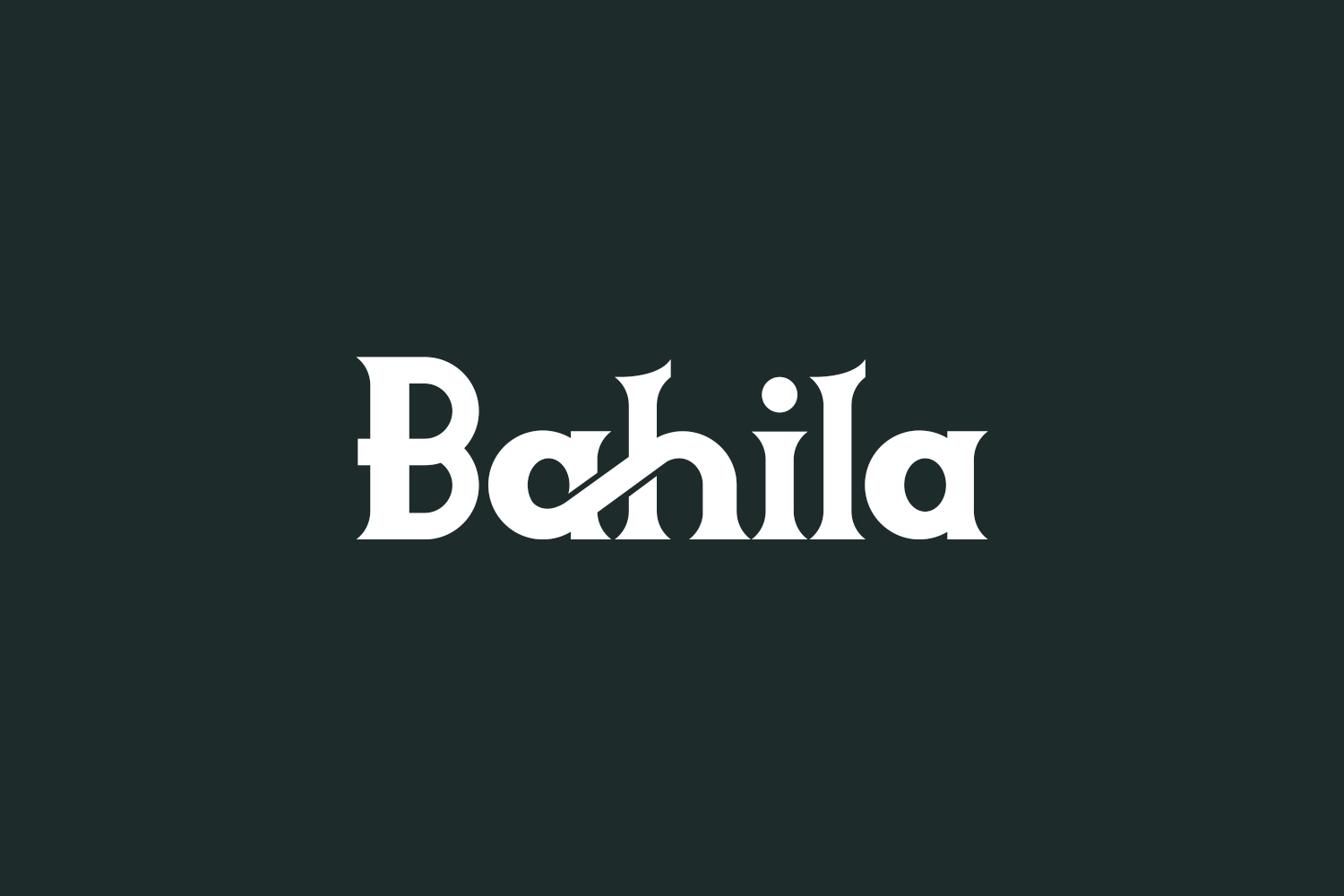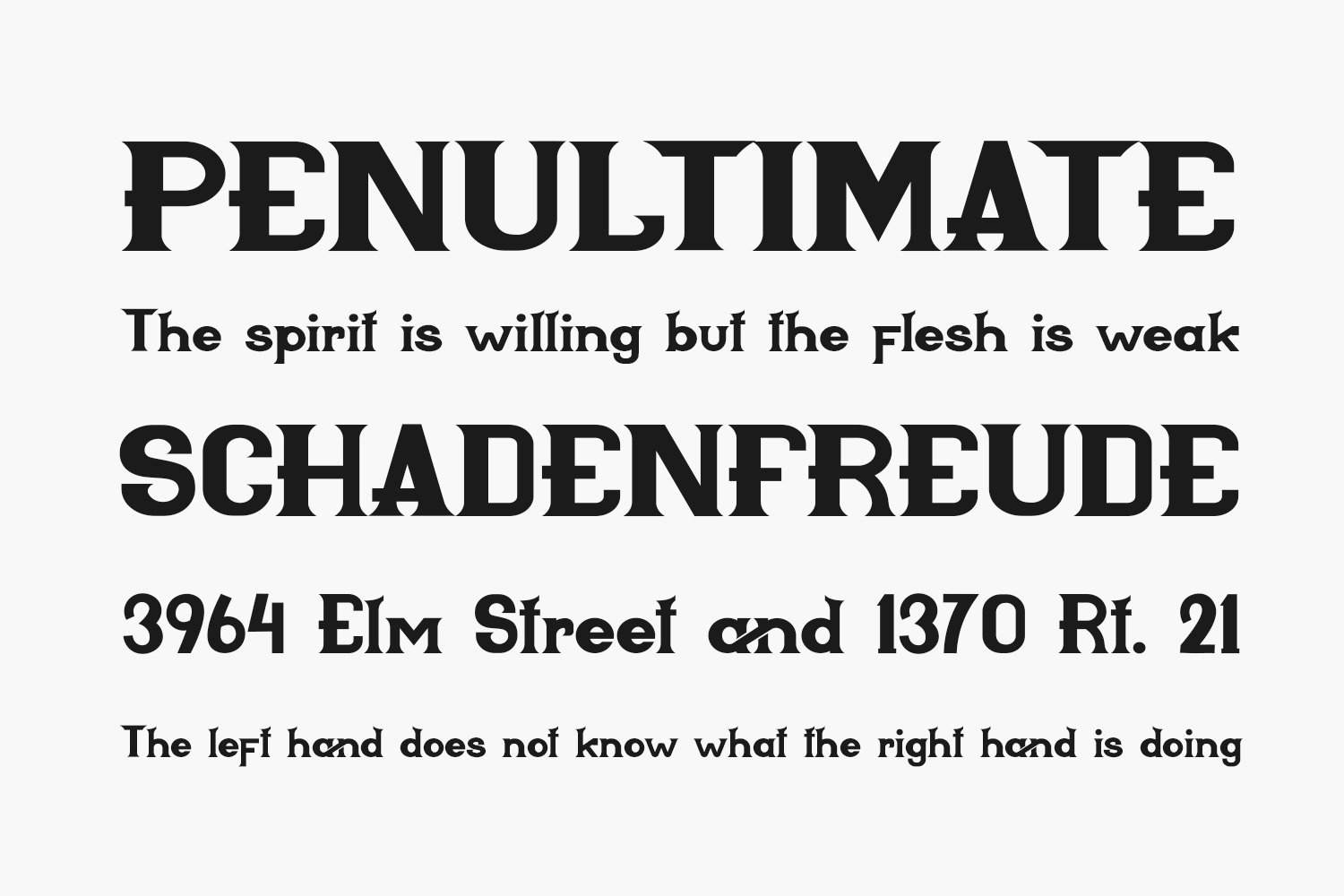
Bahila Free Font is a modern and bold serif font. It will look stunning on any poster flyer or print. Use this font for your designs and explore its endless possibilities. Bahila Free Font was designed by Yan Studio and is free for personal use only. Please purchase the full version for commercial use.